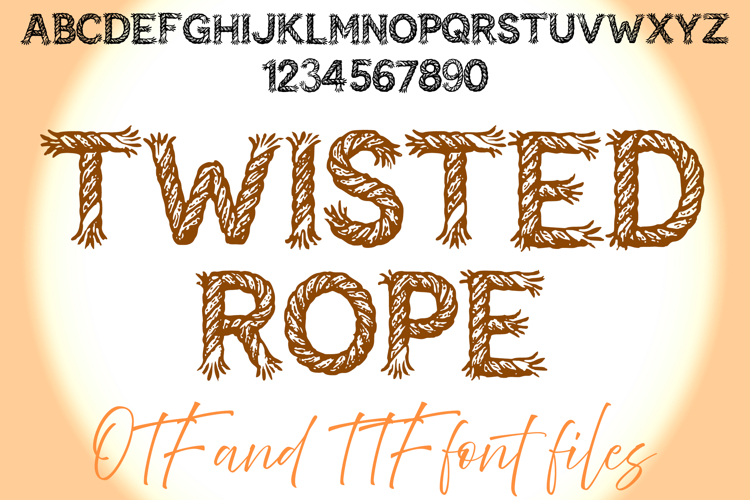
Twisted Rope Frayed Lettering ABC Text Font Alphabet OTF Type IllustrationÂ
A frayed material style font where you can create your own words and colour them to your vision!